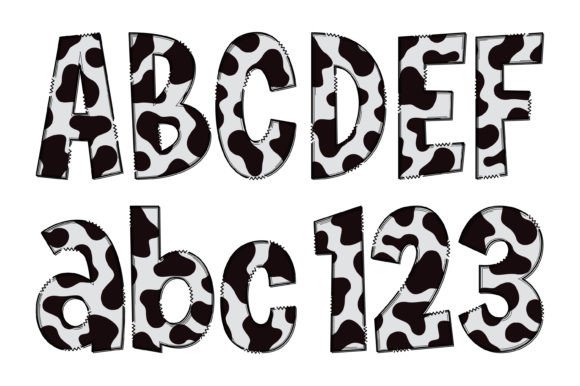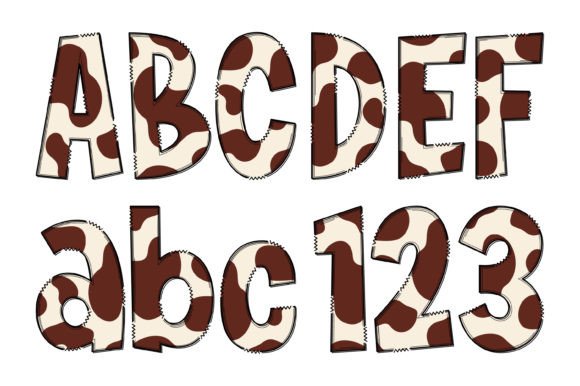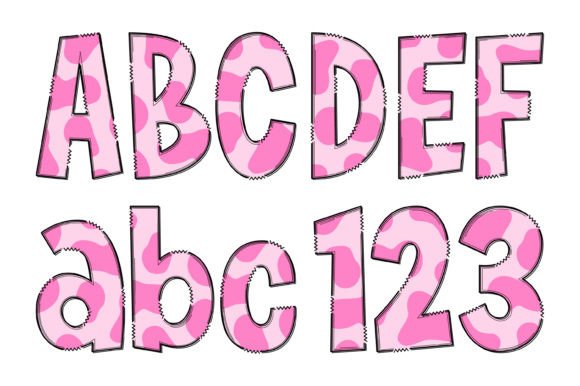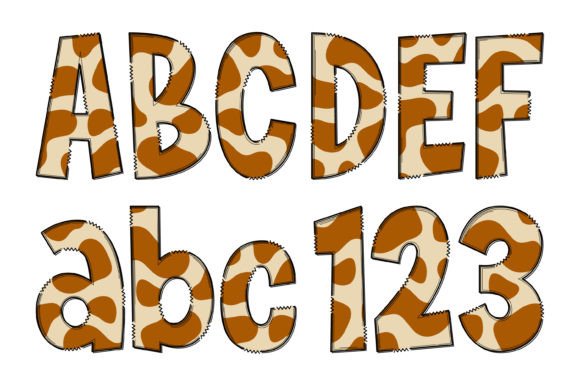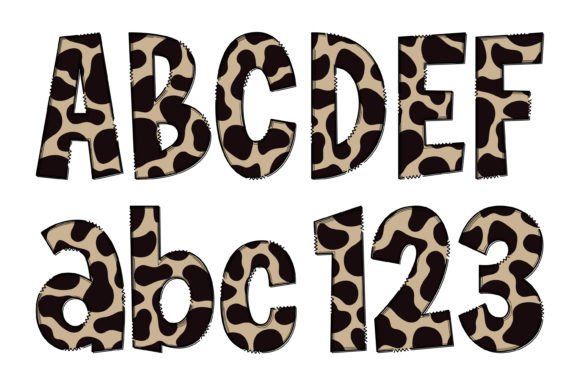
Cow Farm Bundle Font: A Playful and Artistic Typeface for Your Designs
Are you looking for a font that can add a playful and artistic touch to your designs? Look no further than the Cow Farm Bundle Font! This charming font is perfect for designers and crafters who want to create engaging and whimsical designs for children’s books, posters, invitations, greeting cards, and more.
The Characteristics of Cow Farm Bundle Font
The Cow Farm Bundle Font is a color font (Opentype-SVG) that is designed to bring a sense of playfulness and creativity to your designs. Its whimsical and colorful nature makes it an ideal choice for designs that aim to appeal to young audiences, such as children’s books. The font is easy to read, making it perfect for body text, and its unique design elements add a touch of personality to any design.
Uses of Cow Farm Bundle Font
The Cow Farm Bundle Font is a versatile typeface that can be used in a variety of design projects, including:
- Children’s books: The font’s whimsical and colorful nature makes it perfect for children’s books, where it can help create an engaging and immersive reading experience for young audiences.
- Posters: The font’s playful design makes it ideal for posters, where it can be used to grab attention and convey a sense of fun and creativity.
- Invitations: The font’s artistic feel makes it perfect for invitations, where it can be used to set the tone for a special event or celebration.
- Greeting cards: The font’s playful and whimsical nature makes it ideal for greeting cards, where it can be used to add a personal touch to any message.
Tips for Using Cow Farm Bundle Font
Here are a few tips for using the Cow Farm Bundle Font in your designs:
- Use it for headlines: The font’s playful design makes it perfect for headlines, where it can be used to grab attention and add a touch of personality to any design.
- Pair it with other fonts: The Cow Farm Bundle Font can be paired with other fonts to create a unique and visually appealing design. Try pairing it with a sans-serif font for a bold and playful look.
- Experiment with colors: The font’s color design makes it perfect for experimenting with different colors and color combinations. Try using different colors to add a pop of personality to your design.
The Cow Farm Bundle Font is a playful and artistic typeface that is perfect for designers and crafters who want to add a touch of whimsy to their designs. Its versatility and compatibility with a range of design software make it an ideal choice for a variety of design projects, from children’s books to posters and invitations. With its unique design elements and easy-to-read nature, the Cow Farm Bundle Font is sure to become a favorite in your design arsenal.